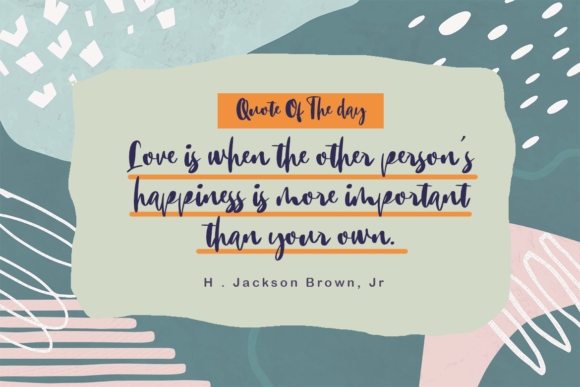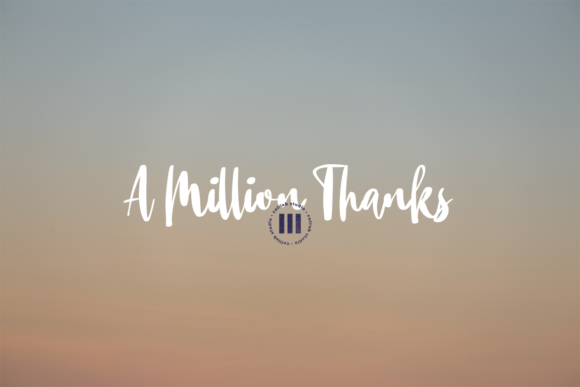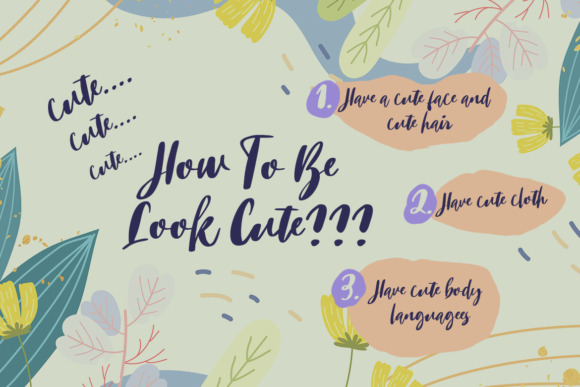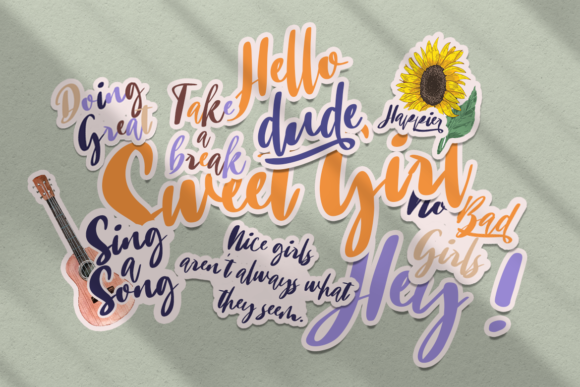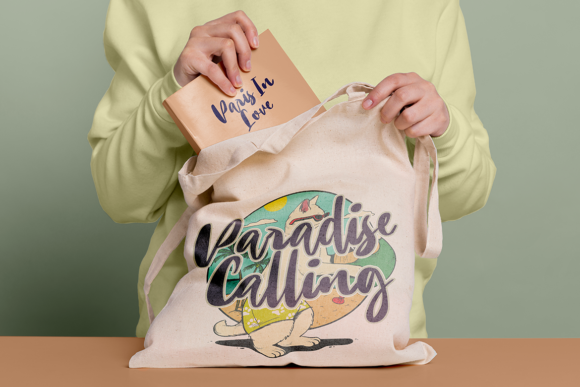
Big Fat Beauty Font
About Big Fat Beauty Font
Big Fat Beauty is a beautiful, elegant, and flowing calligraphy font. It has well-balanced font characters, and a vintage feel that you can use for multiple design purposes, such as packaging designs, headings, social media posts, wall-art, posters, and so much more!